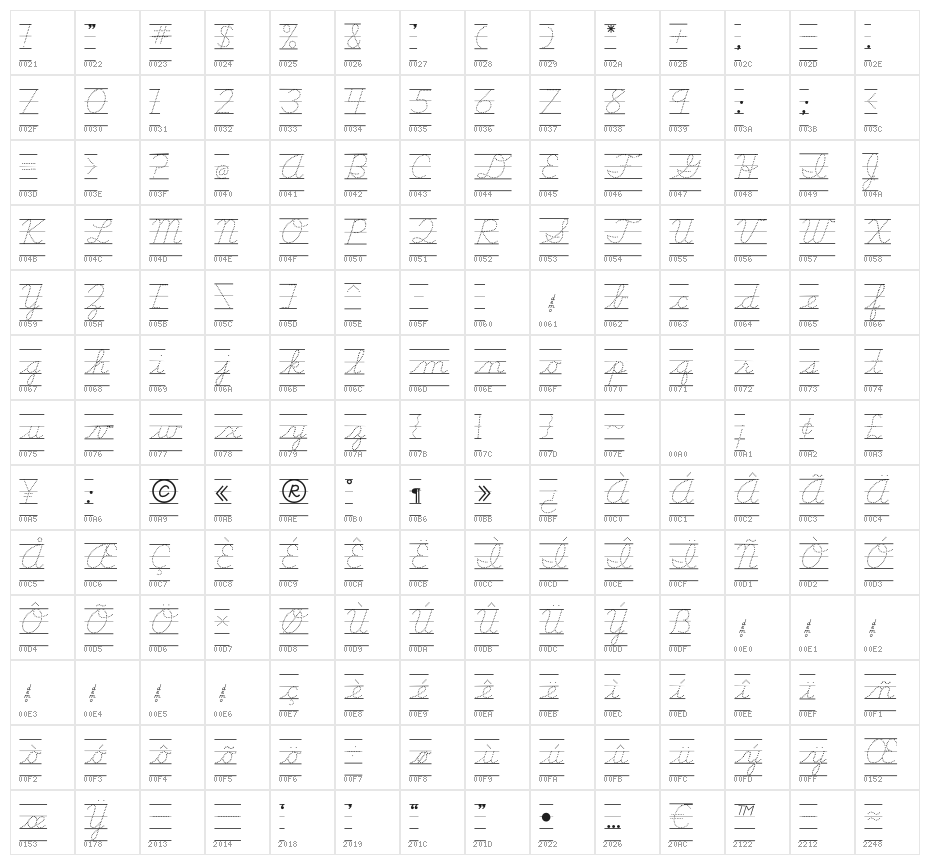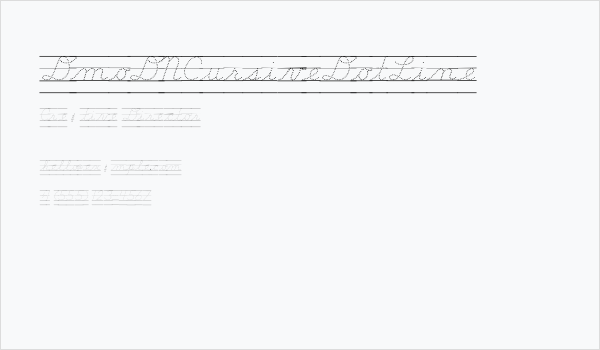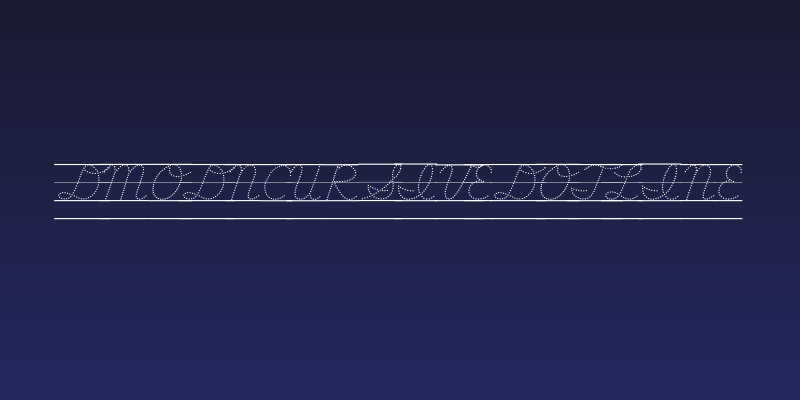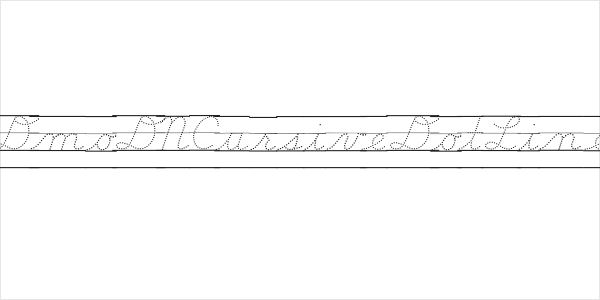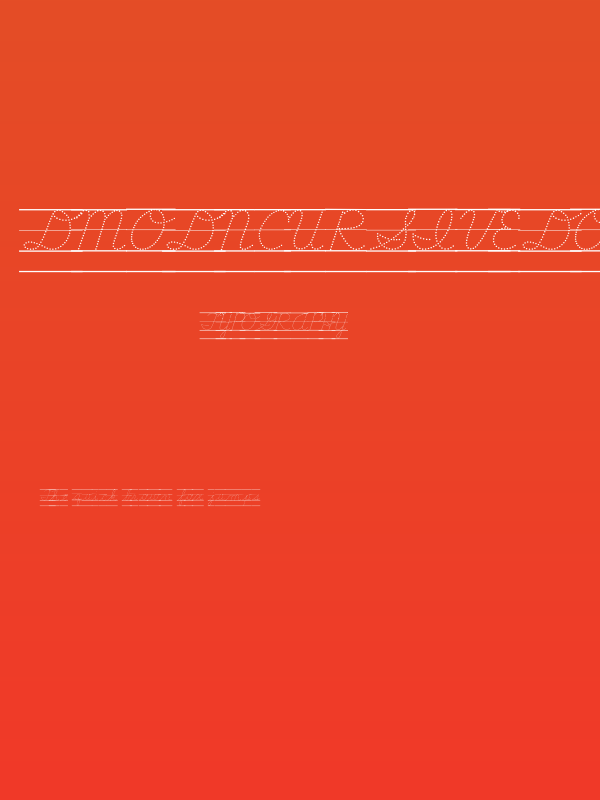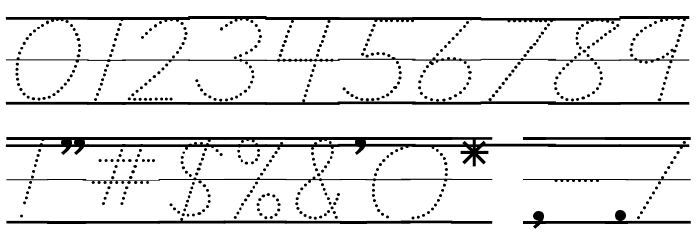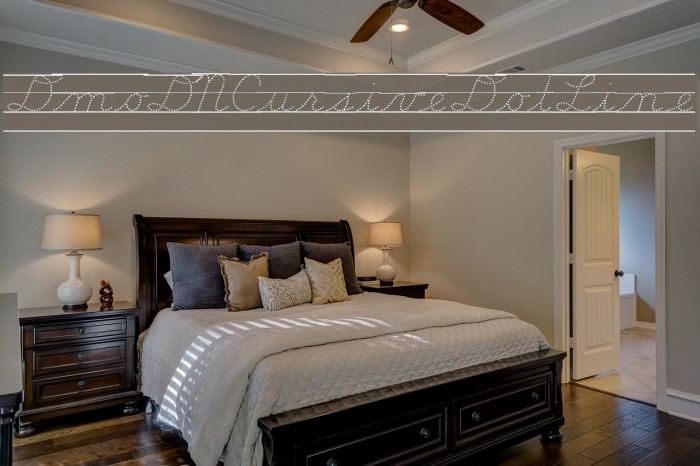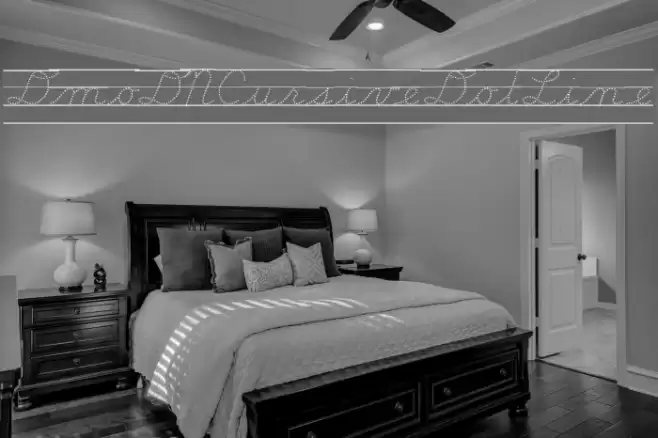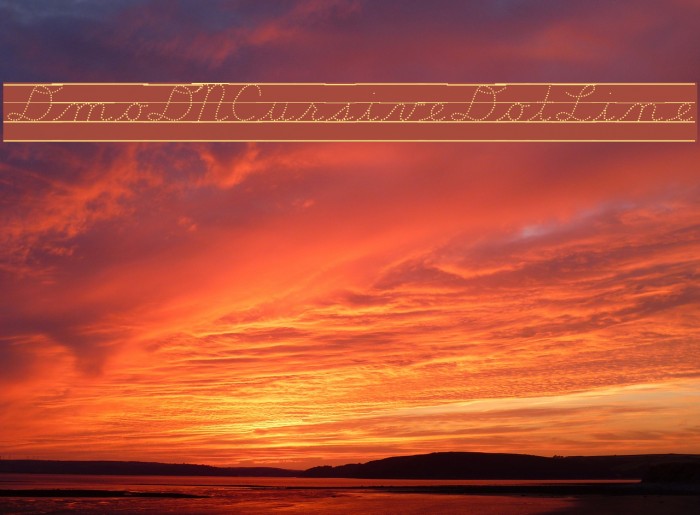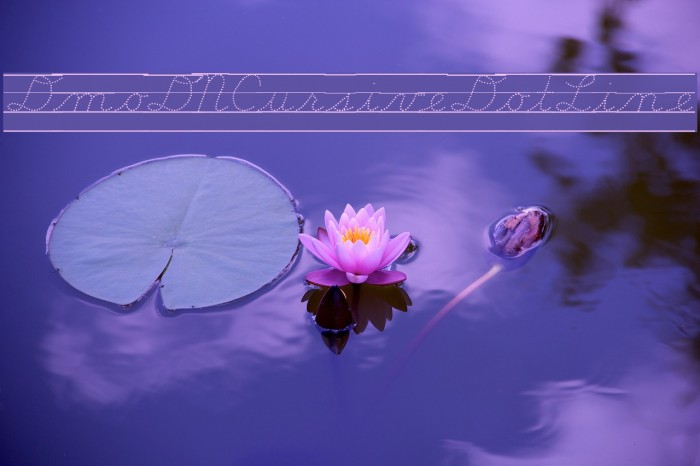
DmoDNCursiveDotLine Font
DmoDNCursiveDotLine Description
This font features a dotted cursive style designed to aid in handwriting practice. Each character is composed of evenly spaced dots, providing a clear guide for learners to trace. The uppercase and lowercase letters are elegantly connected, reflecting traditional cursive handwriting. The numerals and special characters maintain the same dotted pattern, ensuring consistency across all glyphs. The font is ideal for educational purposes, particularly for young students or individuals learning cursive writing. Its design is straightforward yet effective, focusing on clarity and ease of use.
| Overall Style | Educational |
| Use Case | Handwriting practice, educational materials. |
| Proposed Projects | Perfect for educational worksheets, handwriting practice sheets, and learning materials. |